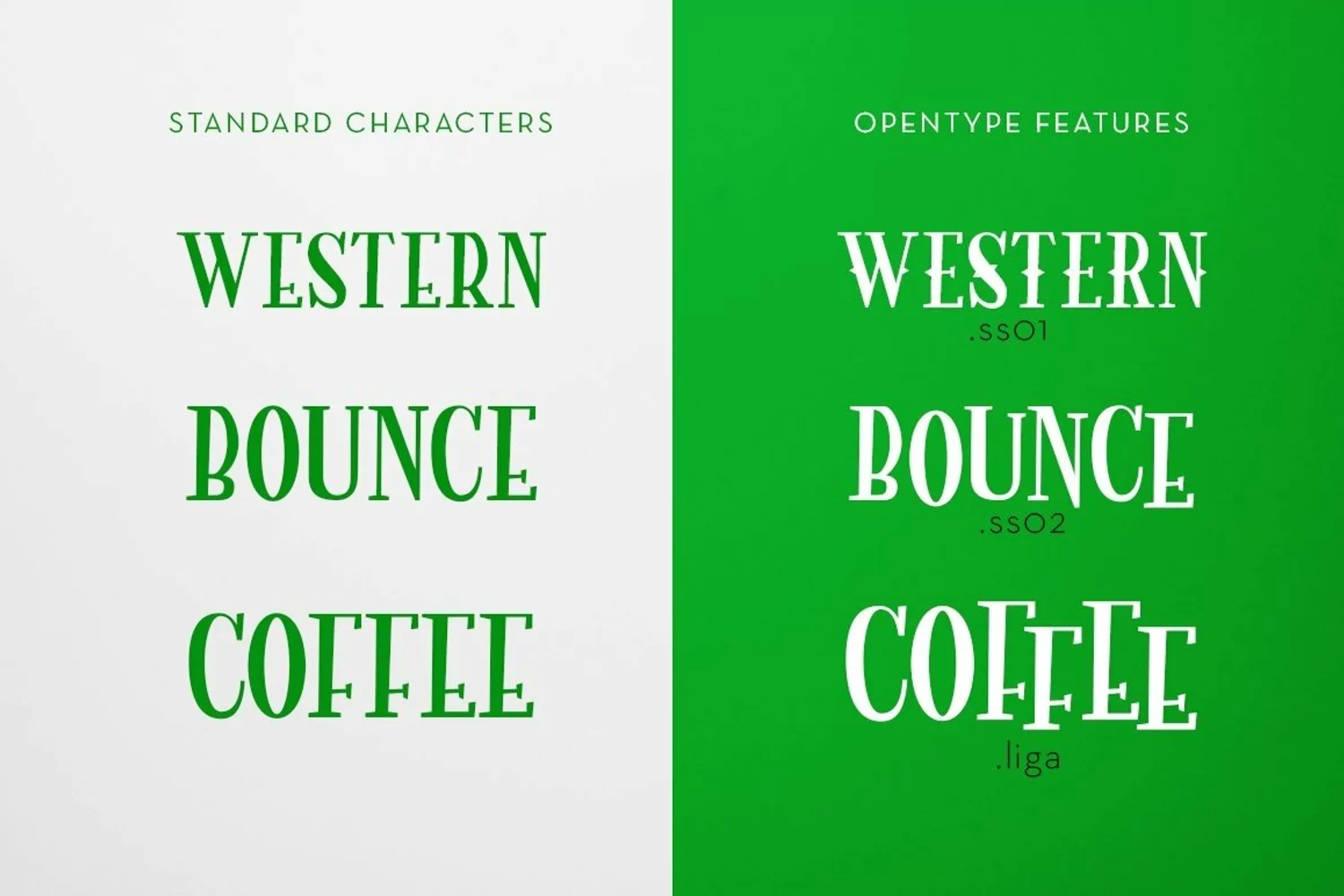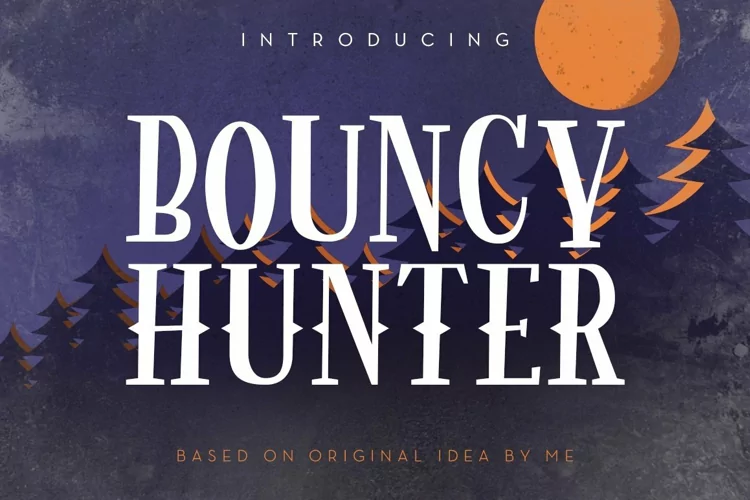
Web Font Bouncy Hunter
Bouncy Hunter is a Modern Roman based on an original idea. It is opentype font and suitable for
any Graphic Designs such as T-shirt and Poster Design, Branding materials, Logo
and all Stationery packages, and for Photography with some texts or quotes
inside it.